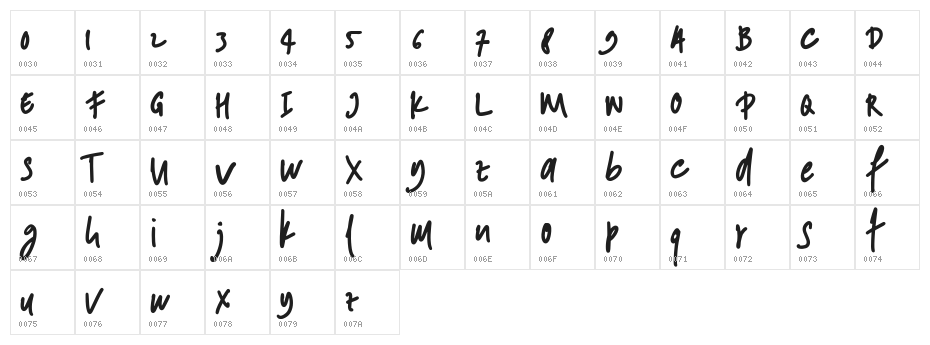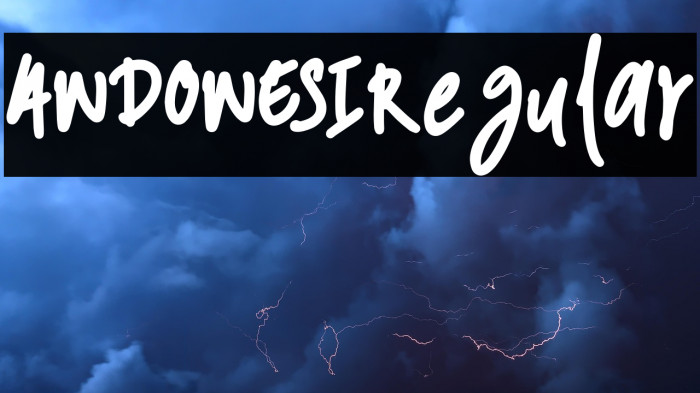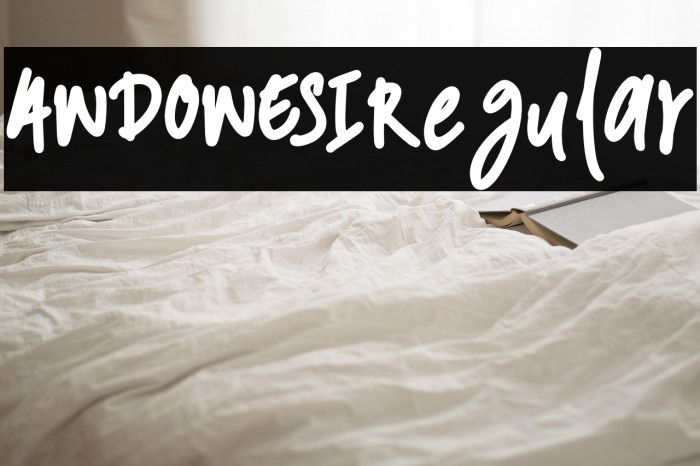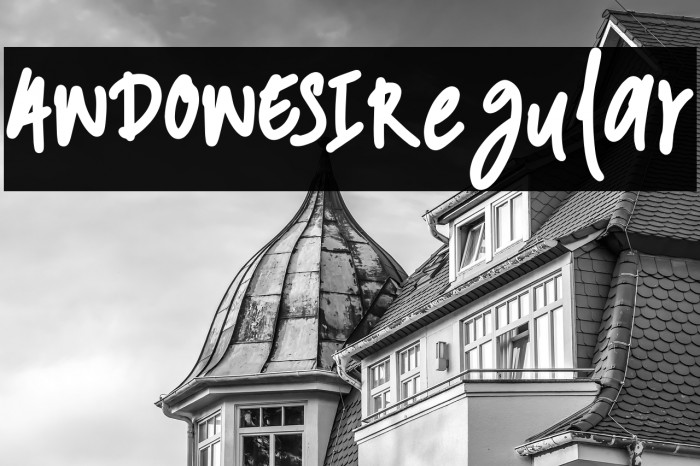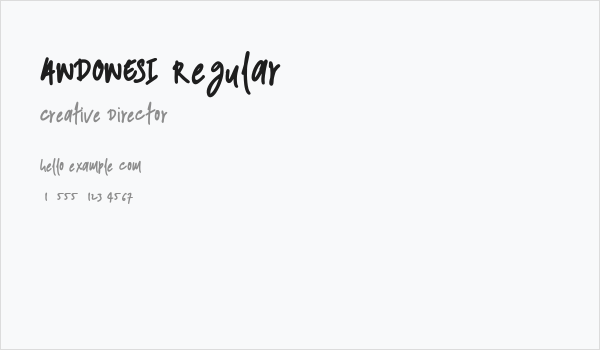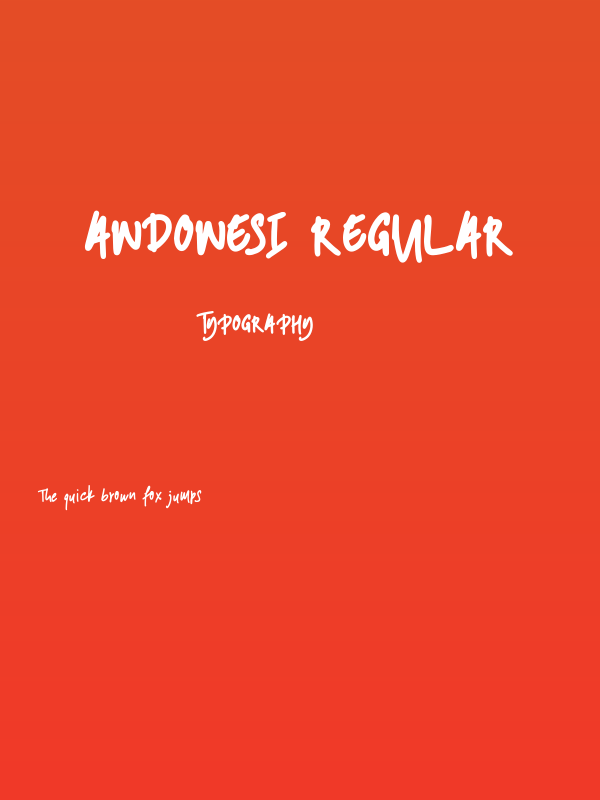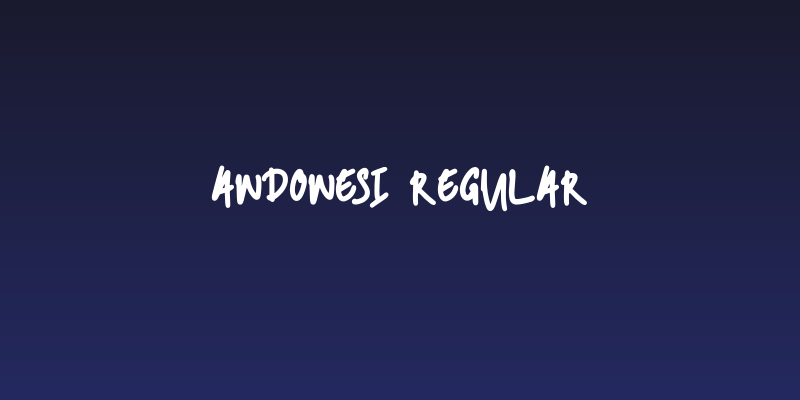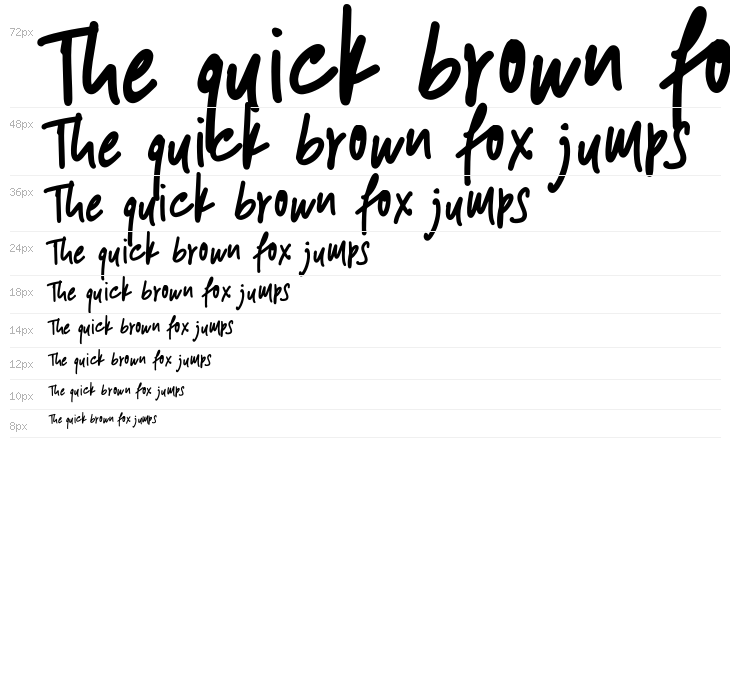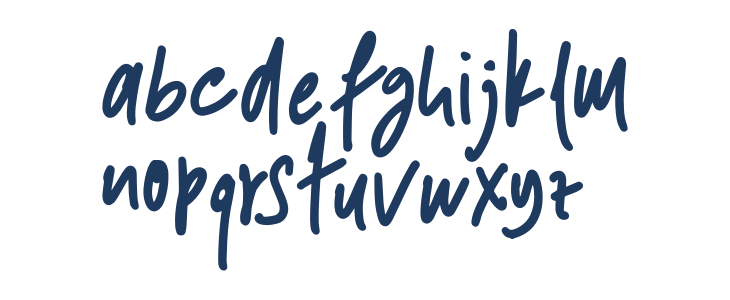
ANDONESI-Regular Font
ANDONESI-Regular Description
This font features a bold and expressive handwritten style, characterized by its fluid and dynamic strokes. The letters are slightly slanted, giving a casual and energetic feel. The uppercase and lowercase letters maintain a consistent style, with some letters featuring unique flourishes that add personality. The numbers are equally bold and maintain the same handwritten aesthetic. Special characters are integrated seamlessly, ensuring a cohesive look across all text. This font is ideal for projects that require a personal touch, such as invitations, greeting cards, or creative branding.
| Use Case | Logos, Headlines, Creative projects |
| Proposed Projects | Ideal for invitations, greeting cards, creative branding, and personal projects. |